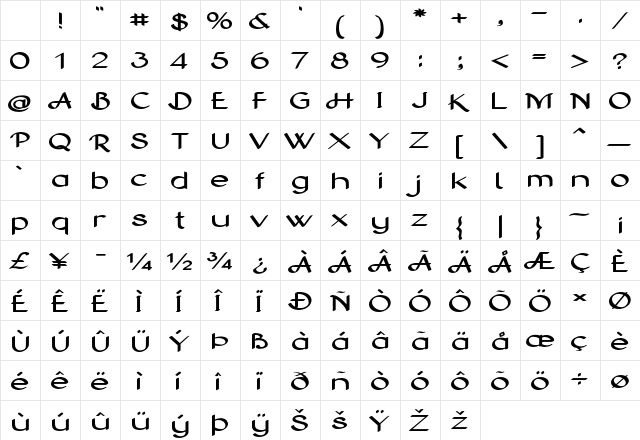
Complete Entreon Extra-expanded Bold glyph index. Displaying only characters natively supported by Entreon Extra-expanded Bold font.
Entreon is a composed and adaptable typeface that performs quietly and consistently across a wide range of design contexts. Its bold stroke weight gives it real presence on the page.